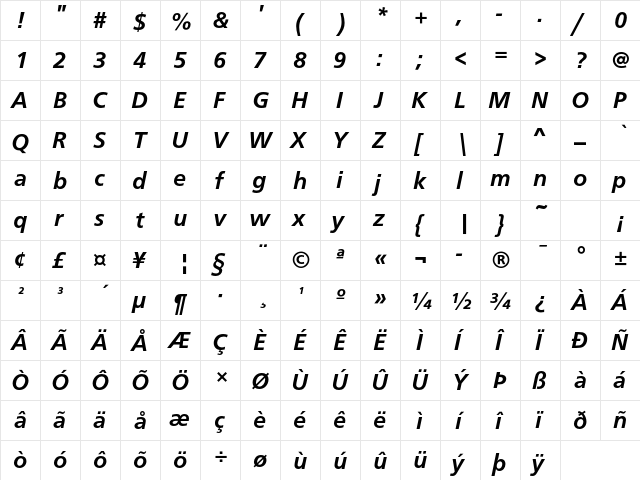
CartoGothic Std Bold Italic Font Preview
CartoGothic Std Bold Italic
CartoGothic Std Bold Italic Font Details
Design Context for CartoGothic Std Typeface
CartoGothic Std has the quiet confidence of well-executed sans-serif typography: versatile, unobtrusive, and dependable at any size. Its italic angle brings a sense of urgency and motion to the letterforms. The heavy weight commands attention and anchors typographic hierarchies.
Well-suited to navigation labels, product packaging, and anywhere legibility at scale is essential.
Font Pairing: Use CartoGothic Std for headlines alongside a lighter-weight sans or serif for body copy to establish clear visual hierarchy.
Pro Tip: Use CartoGothic Std for UI labels, navigation, and short-form body copy where clean legibility is the priority.